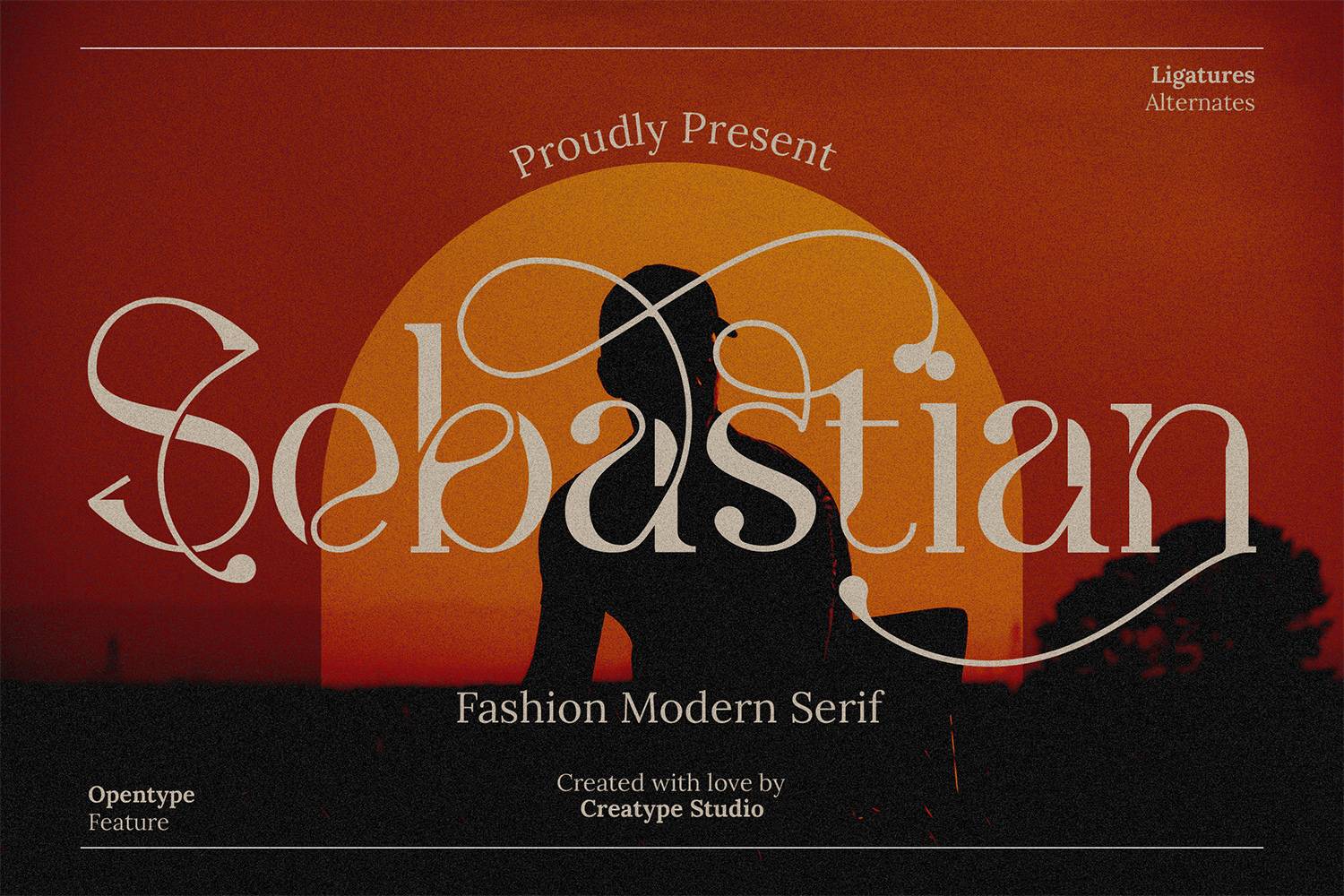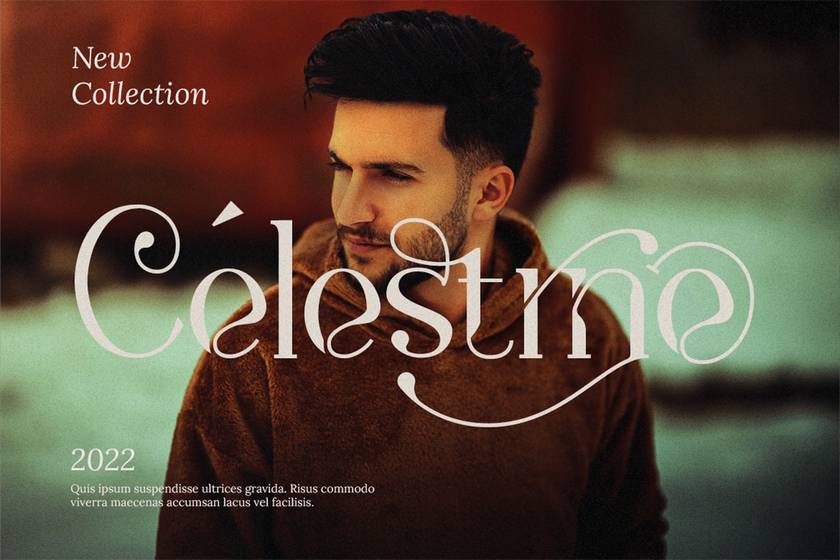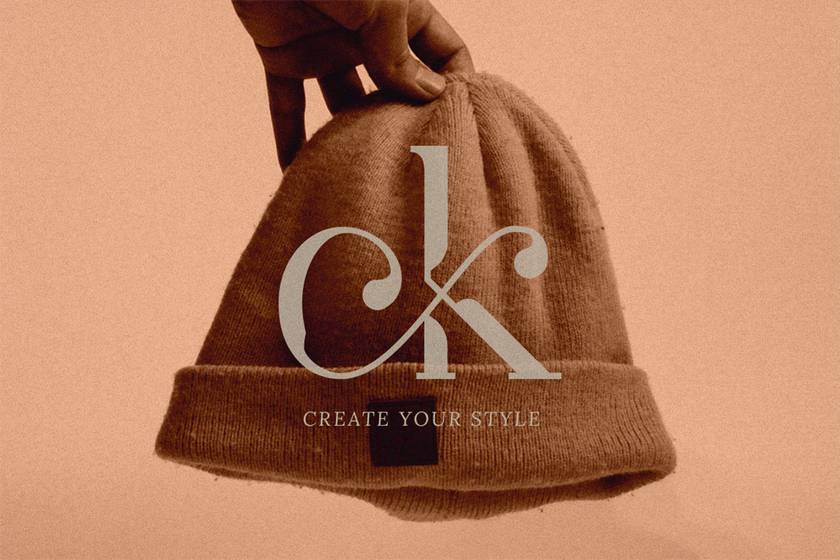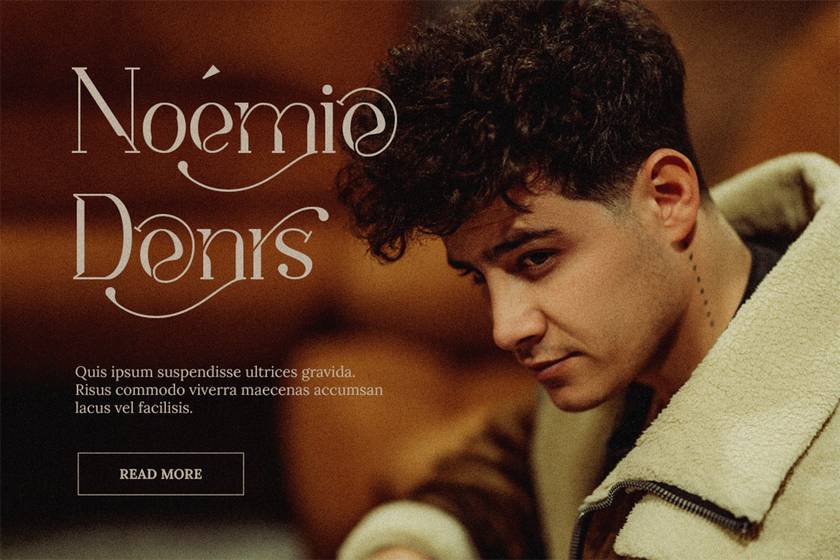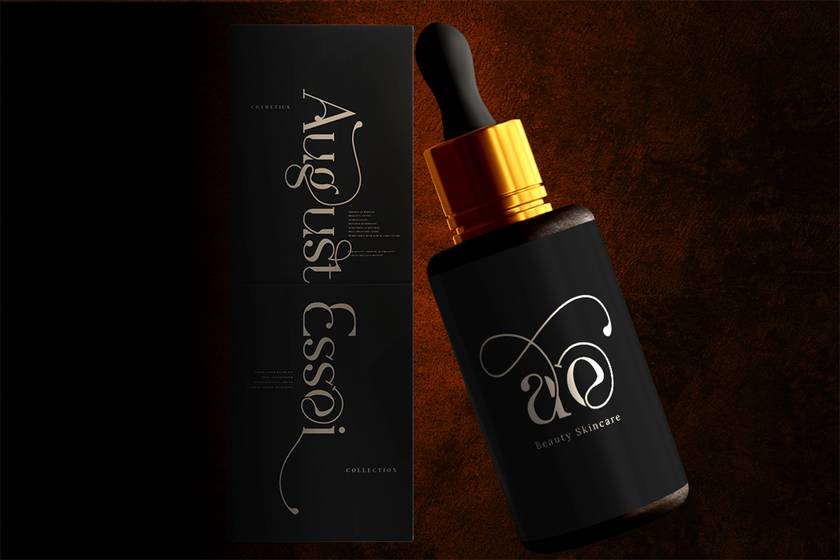
Sebastian is an elegant serif font with a modern twist, featuring high contrast between thick and thin strokes and delicate, sharp serifs that give it a refined and stylish appearance. Its distinctive letterforms, such as the curved terminals and unique detailing on characters like "g" and "Q," make it perfect for luxury branding, editorial headlines, and sophisticated design projects that require a touch of classic charm with contemporary flair.
Sebastian Font
About Sebastian Font
| Font family | Sebastian Font |
| Release date | 2021-09-10 |